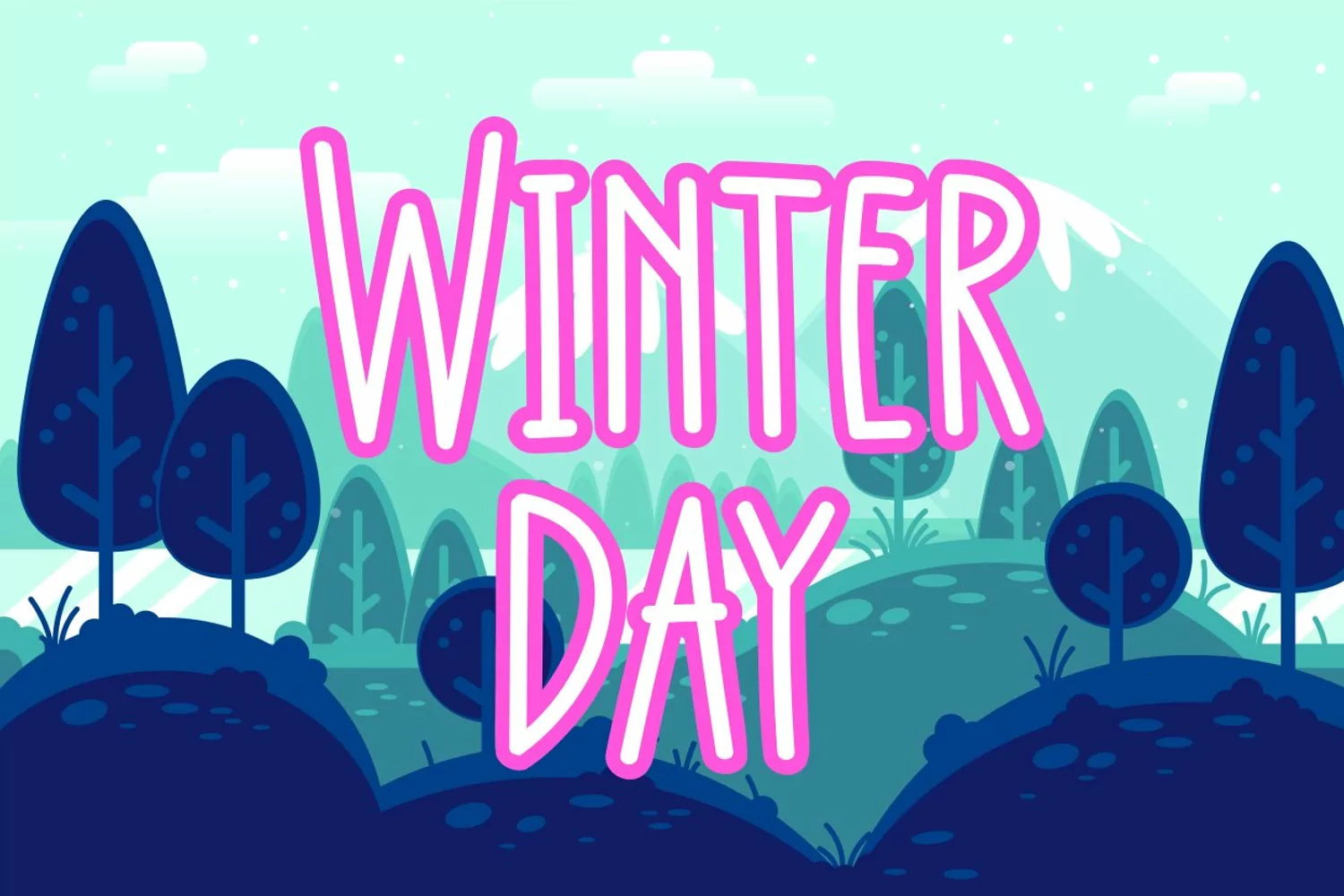
Crafty Yellow a new fresh & simple handwritten font style! So beautiful on invitation like greeting cards, branding materials, business cards, quotes, posters, and more!!
CraftyYellow